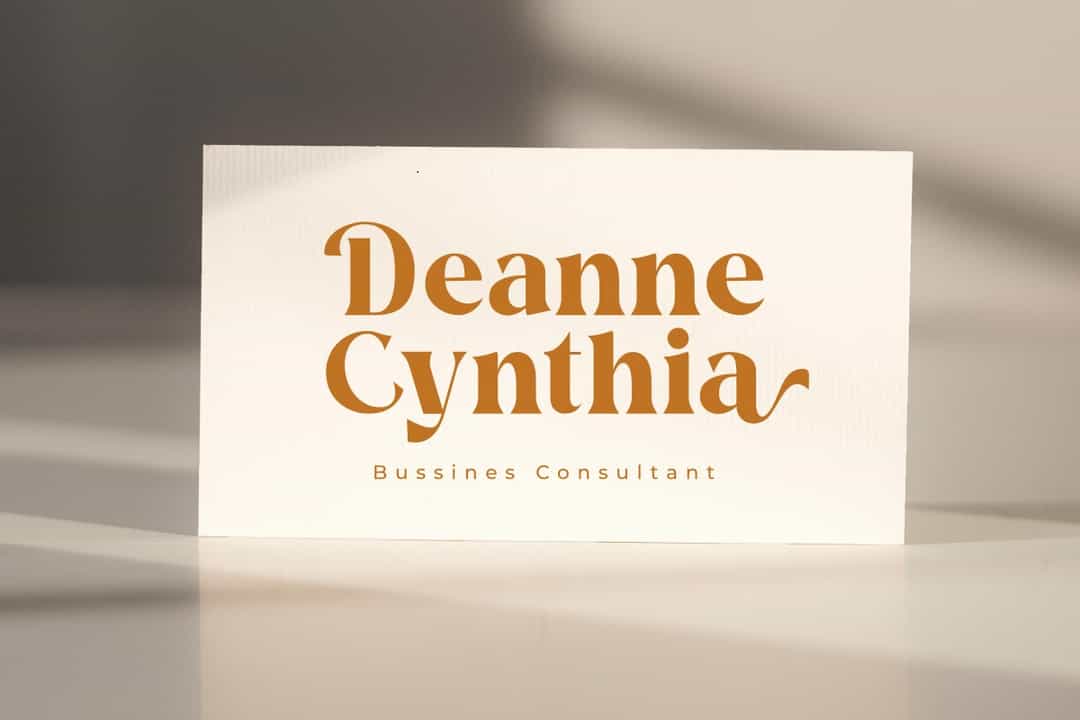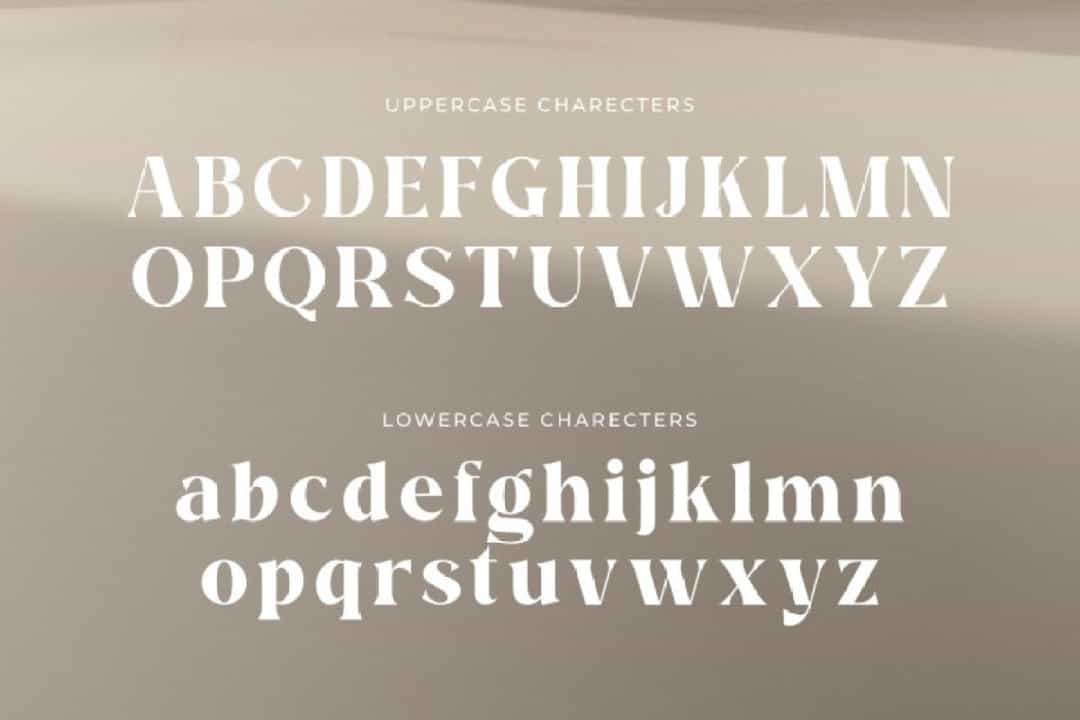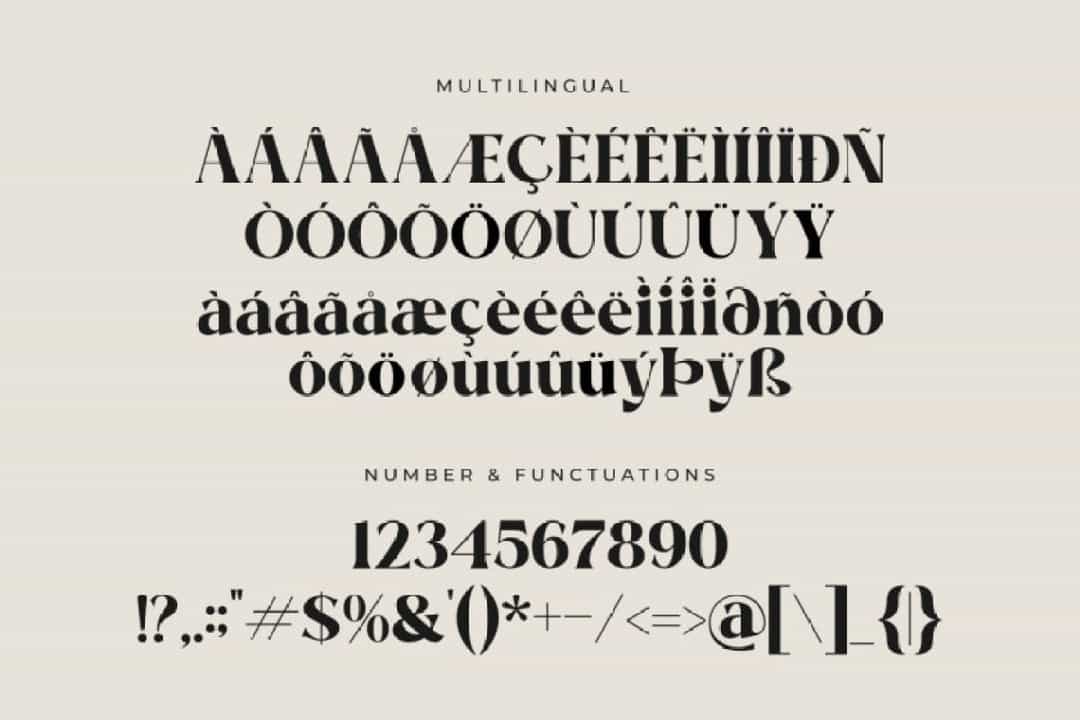
Bright Romance is a wonderful serif font, perfect for giving a sophisticated and luxurious look to any design piece. Balancing between the traditional and the contemporary this font is both attractive to the eyes and functional.